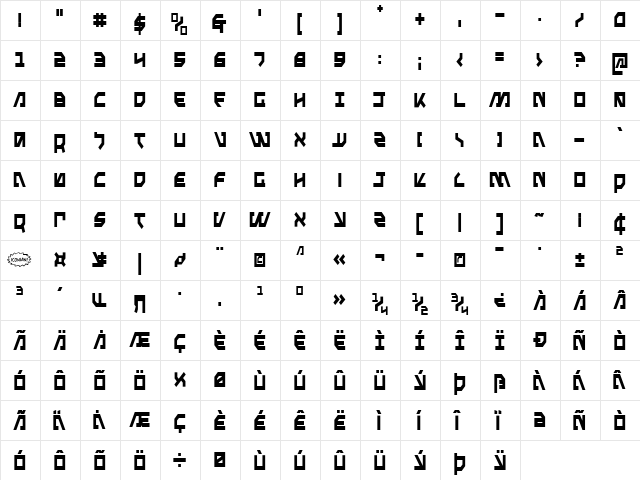
Metal Storm Condensed Condensed
Design Context for Metal Storm Condensed Typeface
Metal Storm Condensed is a composed and adaptable typeface that performs quietly and consistently across a wide range of design contexts. The condensed width makes it efficient for tight spaces without sacrificing legibility.